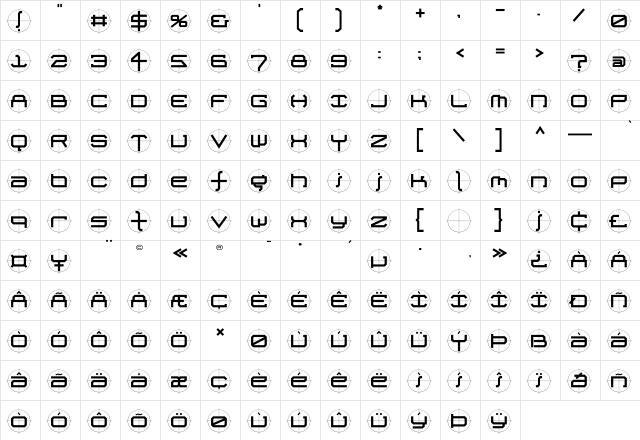
FutureKill Bold
Design Context for FutureKill Typeface
FutureKill has a distinctly futuristic character, with geometric precision and clean angles that feel at home in technology, gaming, and sci-fi contexts. The heavy weight commands attention and anchors typographic hierarchies.